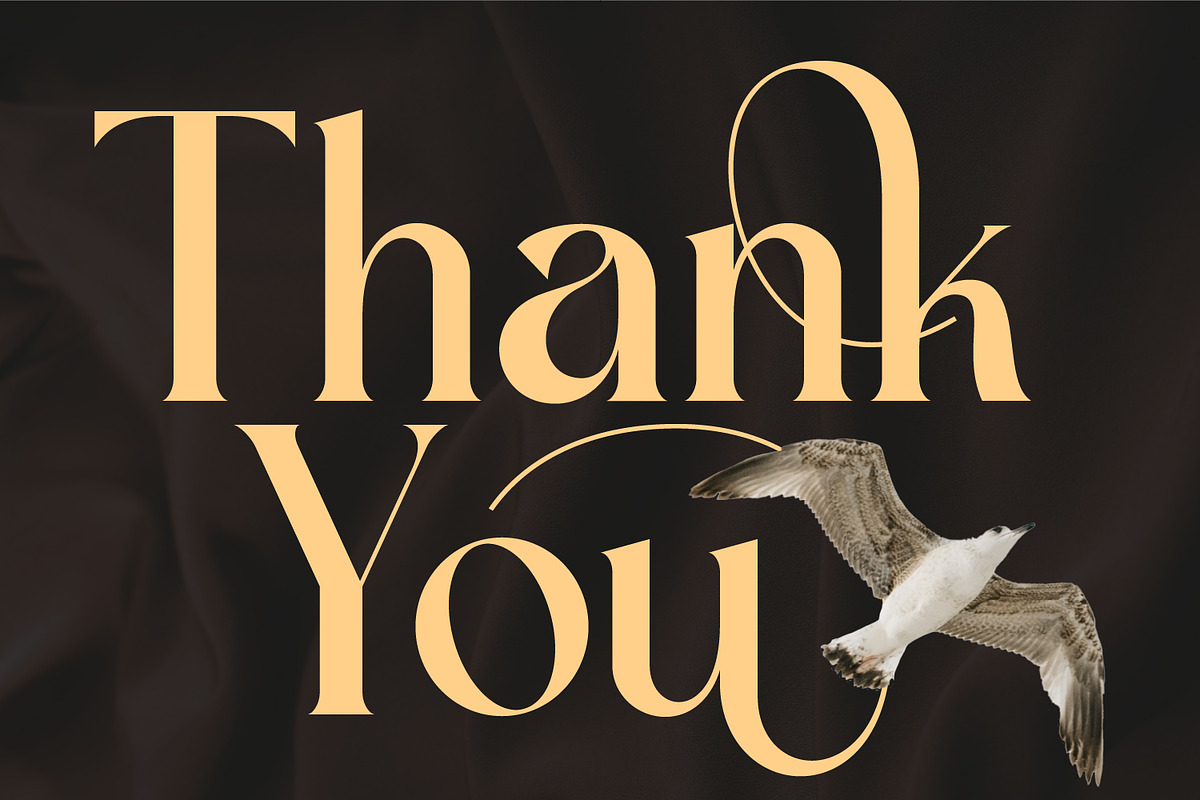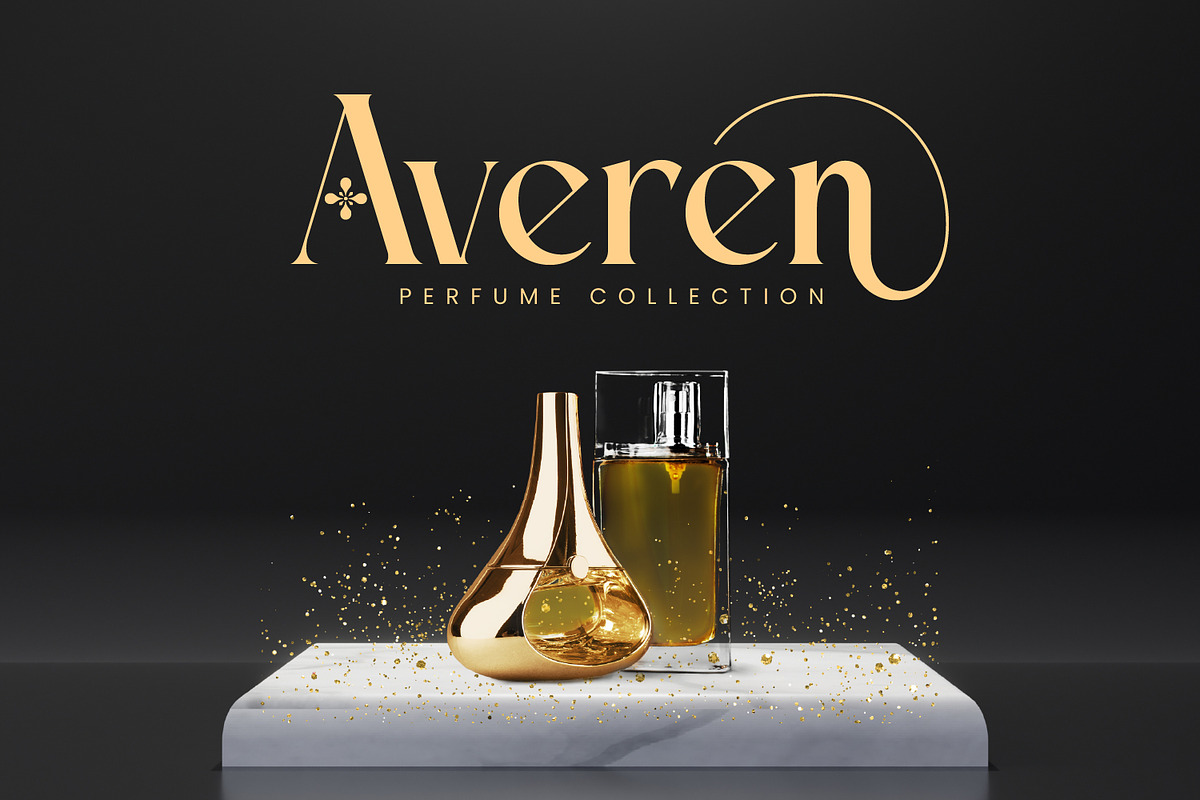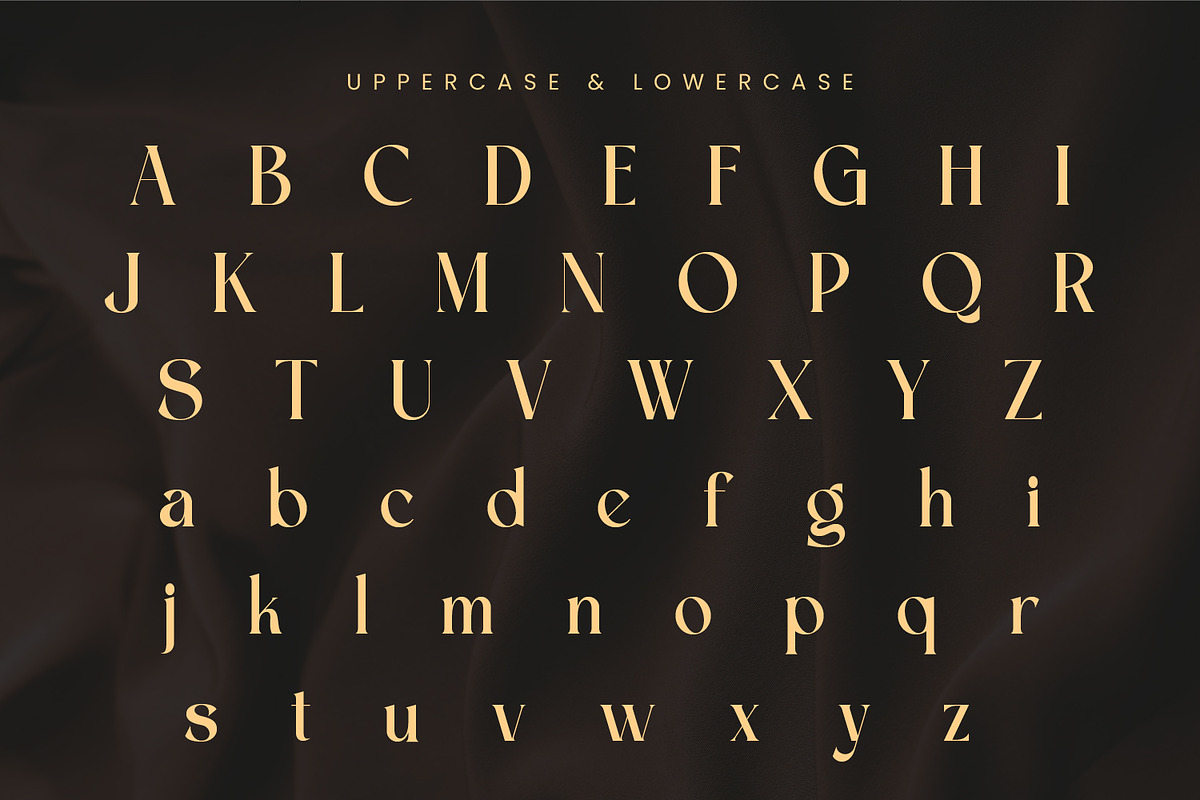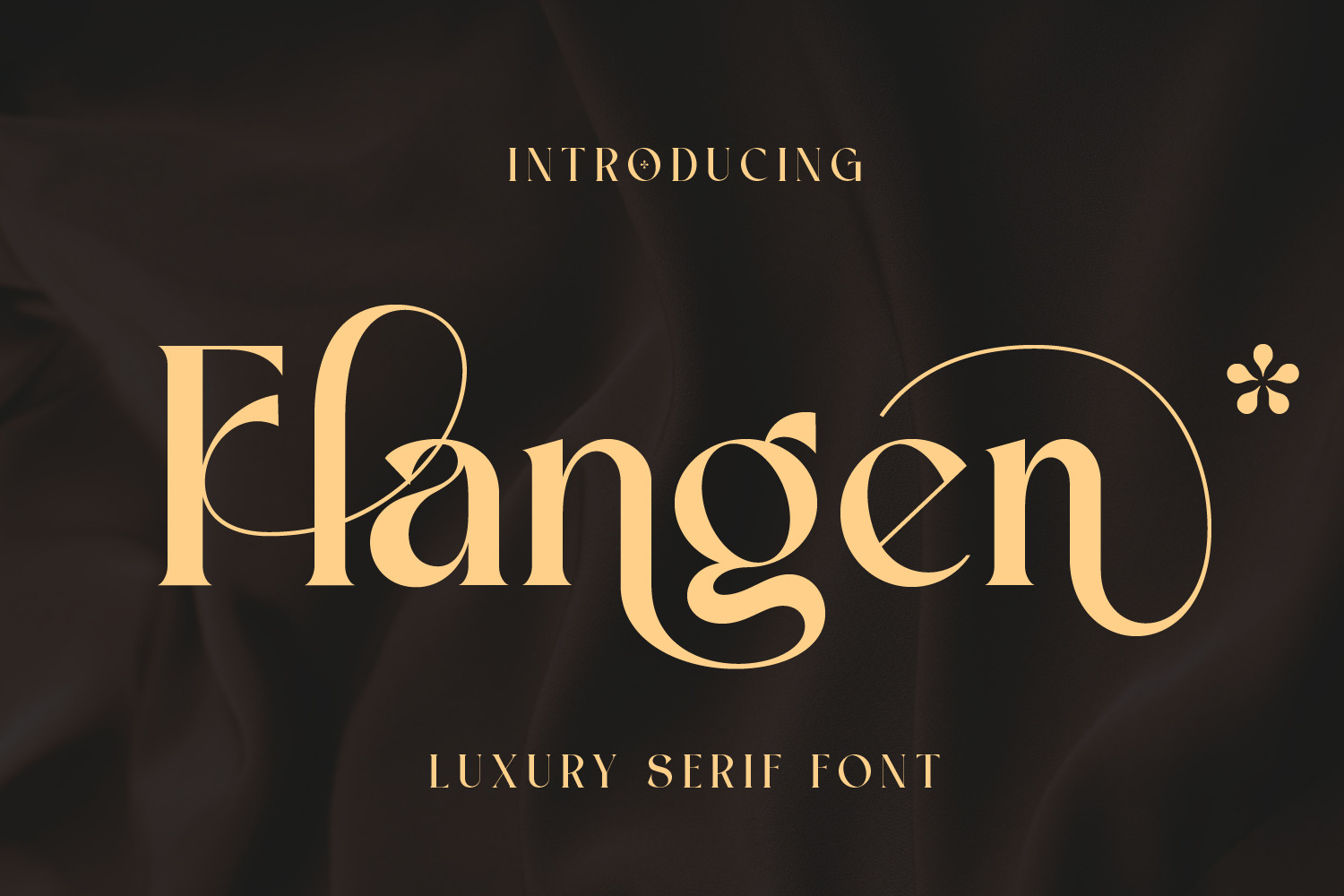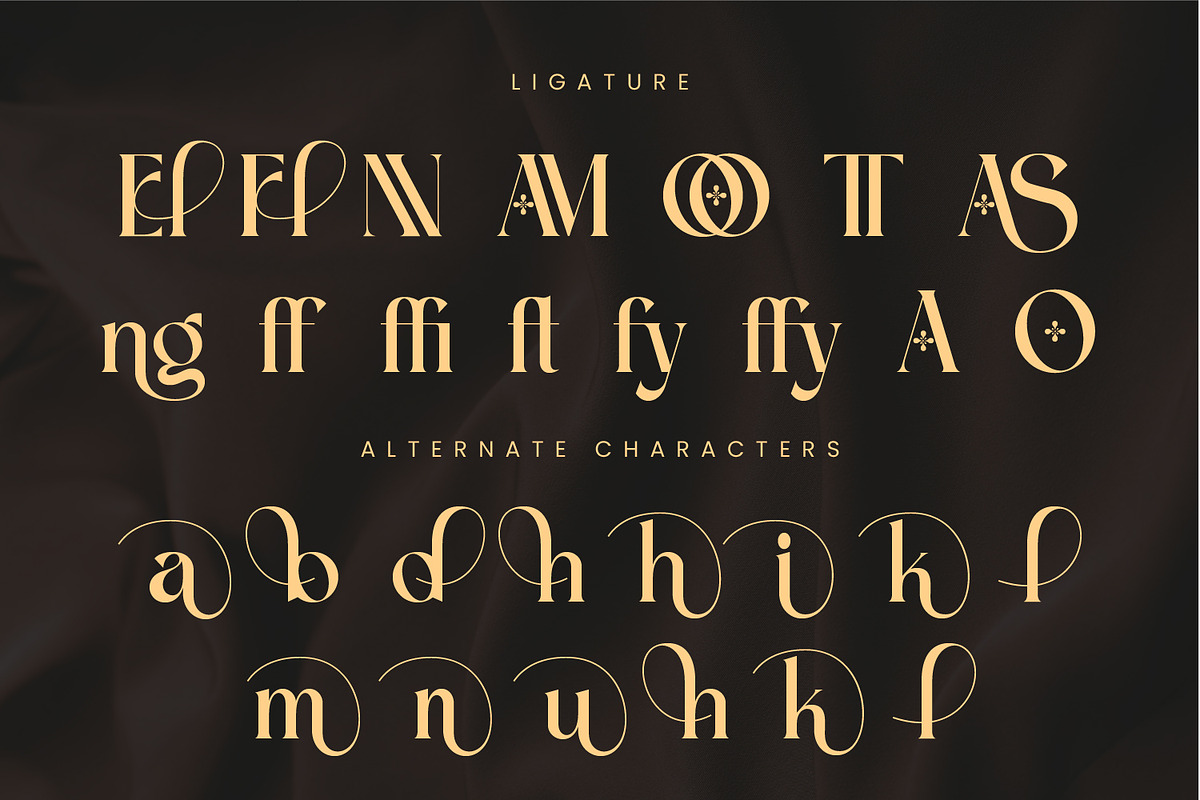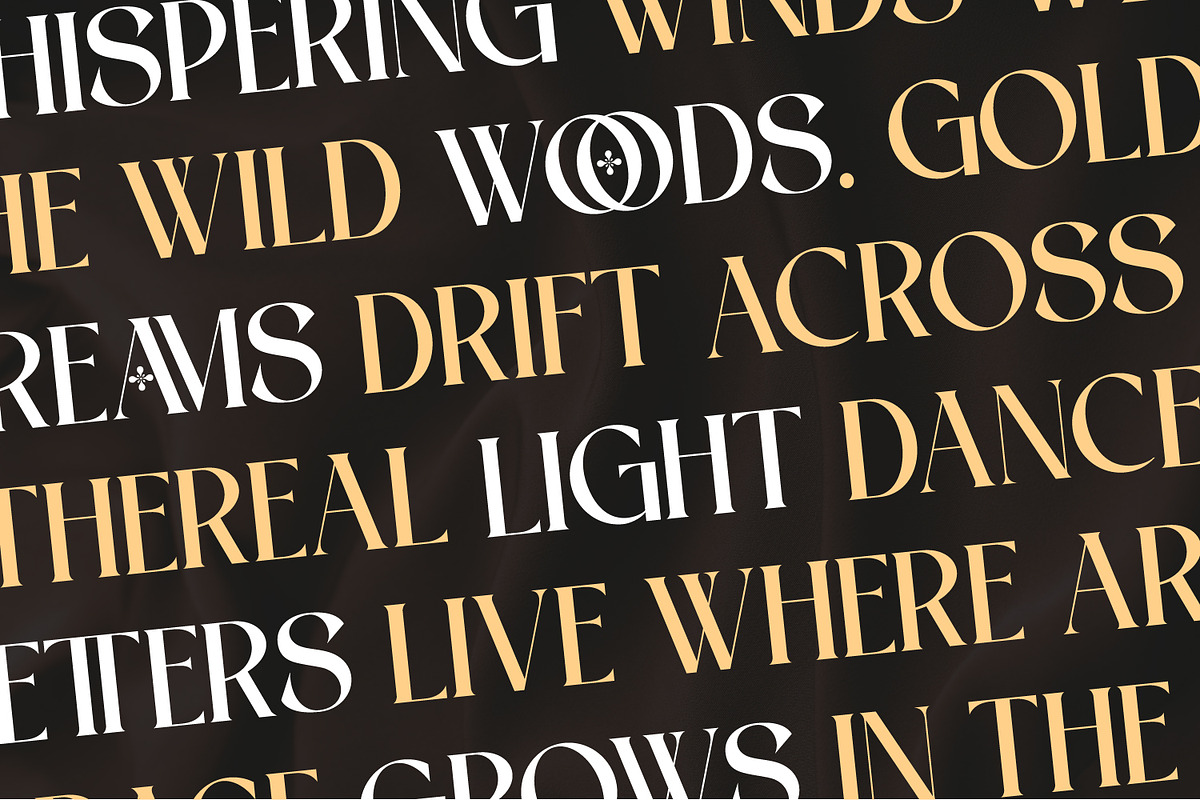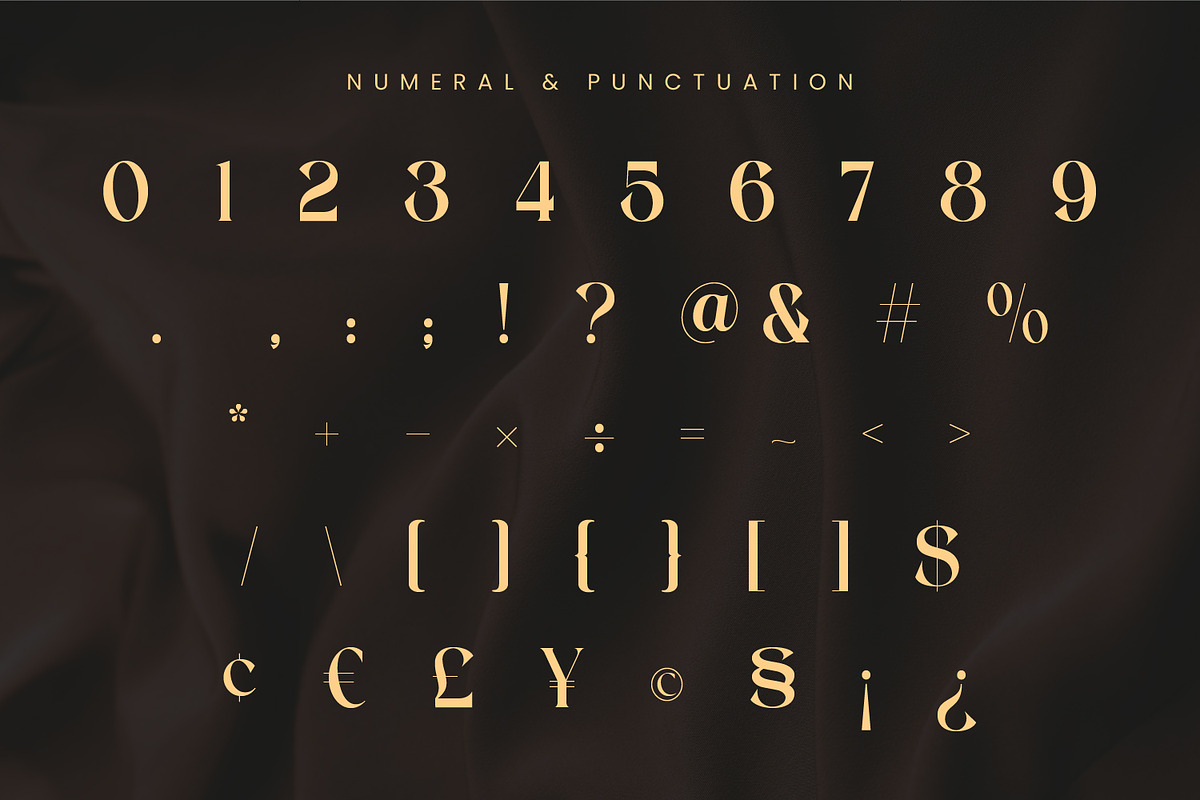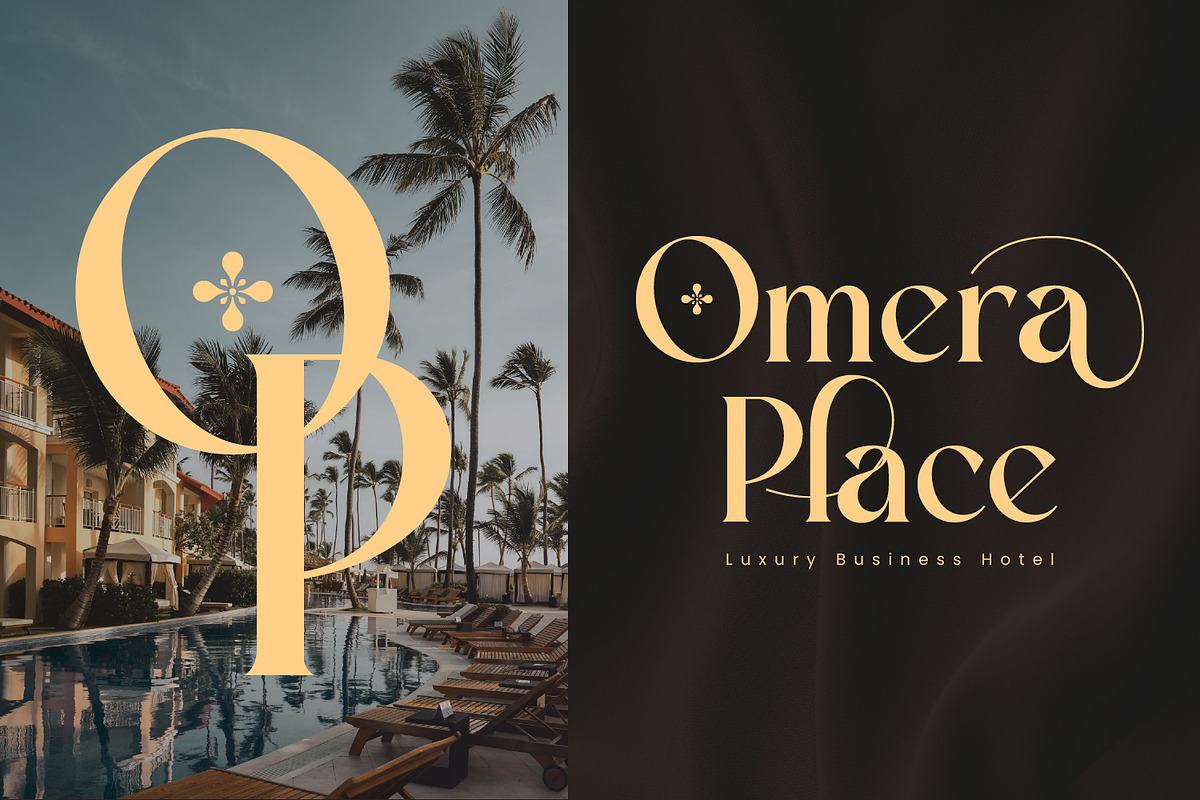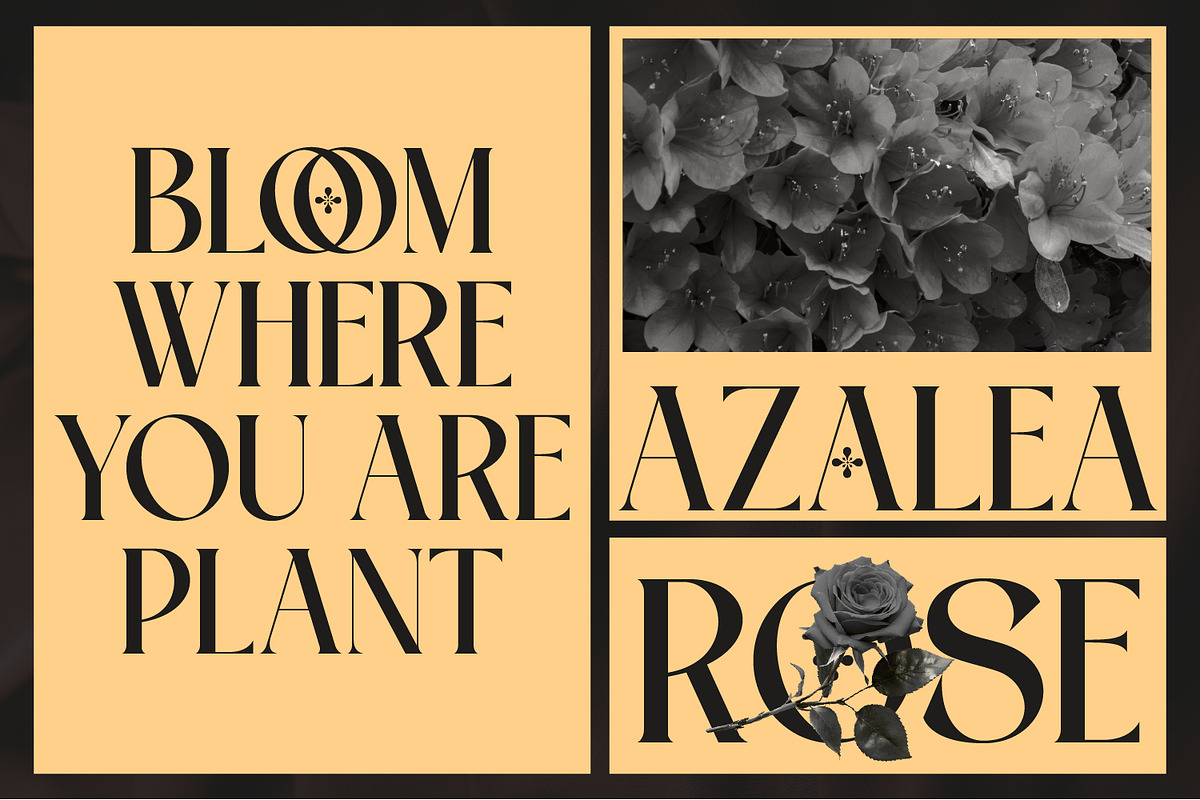
Flangen – Luxury Branding Fonts
Flangel is a luxury serif typeface crafted with graceful curves, refined details, and a sophisticated modern-classic style. Designed to convey elegance and exclusivity, each letter features smooth transitions and artistic shapes that create a truly premium visual experience. Perfect for high-end branding, editorial layouts, beauty products, wedding projects, logo design, and any creative work that requires a refined and luxurious aesthetic.
- Elegant serif style with modern artistic touches
- Unique alternates and ligatures for expressive typography
- Balanced proportions with a high-end, sophisticated look
- Ideal for branding, packaging, fashion, magazines, invitations, and luxury design projects
Style & Mood:
- Luxurious
- Feminine elegance
- Artistic & refined
- With its graceful form and versatile character set, Flangel elevates every design into a polished and stylish masterpiece.